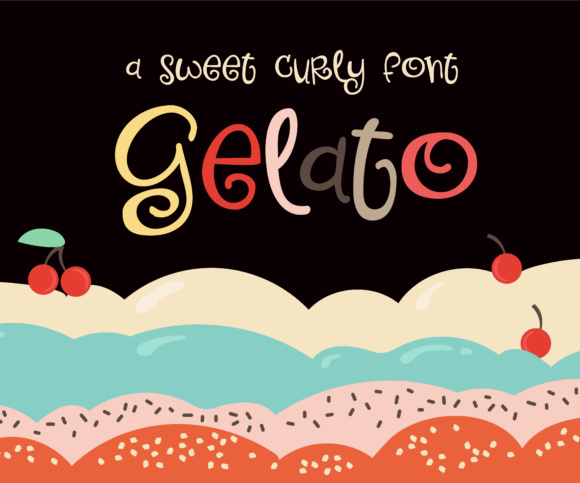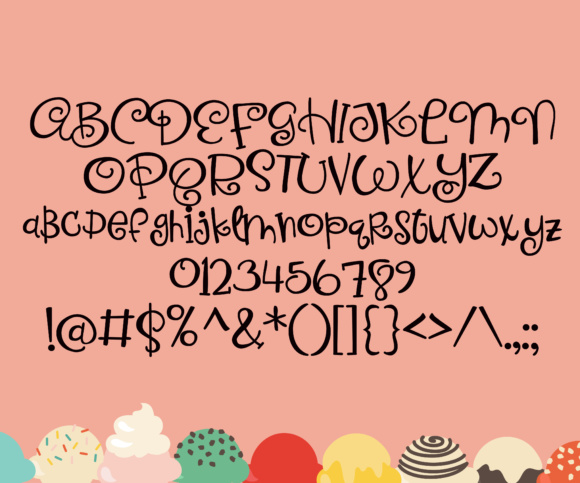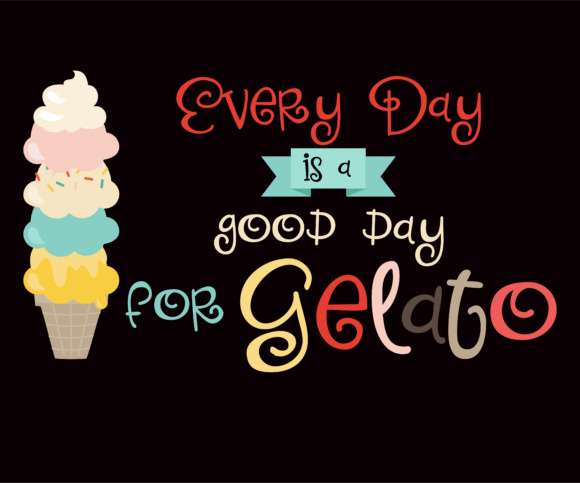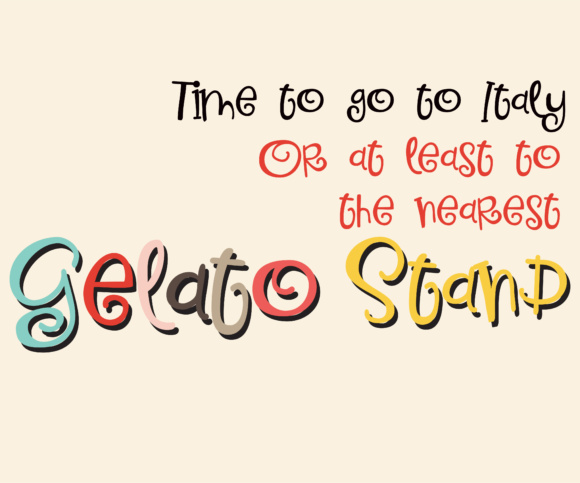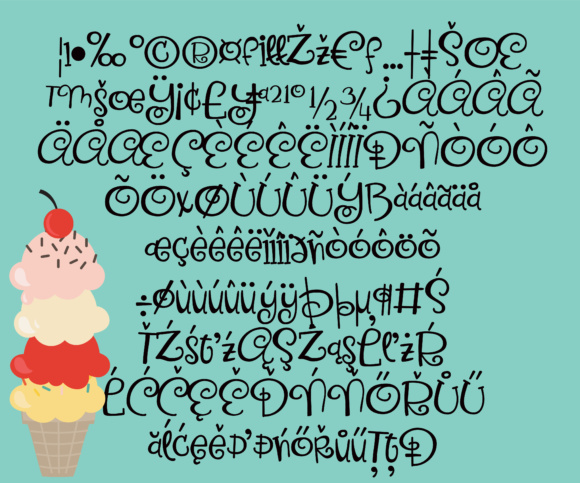
Gelato Font
Gelato is a whimsical font that effortlessly blends curls with friendliness, creating a delightful and stylish appeal for your designs. This casual serif font strikes a perfect balance, offering a highly fashionable aesthetic without compromising on legibility. Gelato is more than just a typeface; it’s a design asset that brings a touch of playfulness and sophistication to your creative endeavors.
The curls in Gelato’s design add a whimsical and dynamic flair, infusing your text with personality and charm. The friendliness of the font makes it approachable, ensuring that your message is not only stylish but also easily readable. This unique combination makes Gelato a versatile choice for a wide range of design applications, from branding to editorial layouts.
The casual serif style of Gelato contributes to its stylish appeal, allowing it to seamlessly adapt to various design contexts. Whether you’re working on a trendy poster, a social media graphic, or a magazine layout, Gelato enhances the visual experience with its distinct charm. The font stands out as a testament to how style and legibility can coexist harmoniously in typographic design.
Imagine Gelato gracing the packaging of a boutique ice cream brand, its whimsical curls reflecting the playful essence of the product. Envision it adding a touch of style to a fashion magazine spread, creating a visually appealing and reader-friendly layout. Gelato’s ability to combine curls and friendliness makes it a valuable asset for designers looking to infuse their projects with both character and readability.
In summary, Gelato is a whimsical font that brings a perfect blend of curls and friendliness to your designs. Its stylish appeal and casual serif design make it a versatile choice for a variety of applications. With Gelato, you have a design tool that not only adds a touch of playfulness but also ensures that your message is conveyed with clarity and legibility, creating a delightful and stylish visual experience.